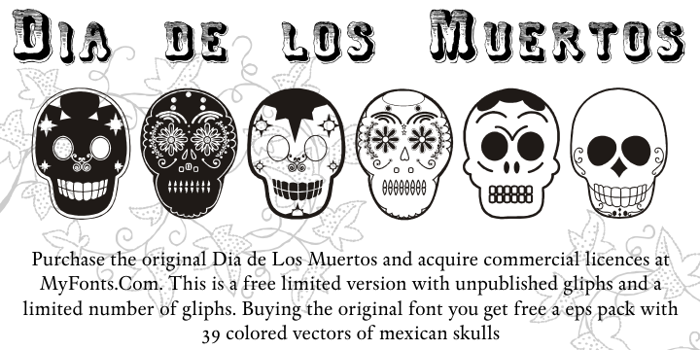
Dia de los Muertos Limited Free Font
Dia de los Muertos Free Version, by Intellecta Design
Dia de los Muertos Free Version has unpublished gliphs in a special free set, with a limited number of gliphs. Buying “Dia de los Muertos” (at MyFonts.Com) you get FREE a amazing set of eps vectors : 39 naive, intrincated and colored funny skulls, ready to use."
Dia de los Muertos is a colorful collection of skulls based on the lively Mexican fiesta celebration where skulls are used as humorous epitaphs of people still alive, besides being a symbol of celebration. A work of Iza W that can be used for children in arts, arts crafts, among other applications. Buying “Dia de los Muertos” you get FREE a amazing set of eps vectors : 39 naive, intrincated and colored funny skulls, ready to use."